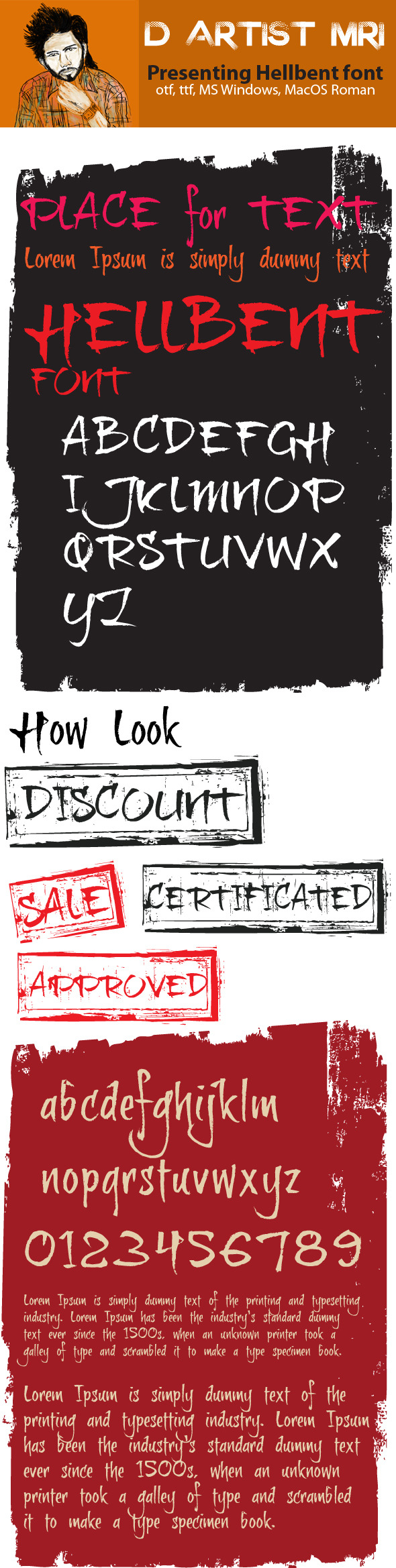
Hellbent Font is a stylish Font. Available in Regular with all special characters.
It’s useful for any Design project. card, e-card, Good for Logos & Headlines, Poster,Tag design, Newspaper & Magazine Ad Design and many more. True type and Open type font files